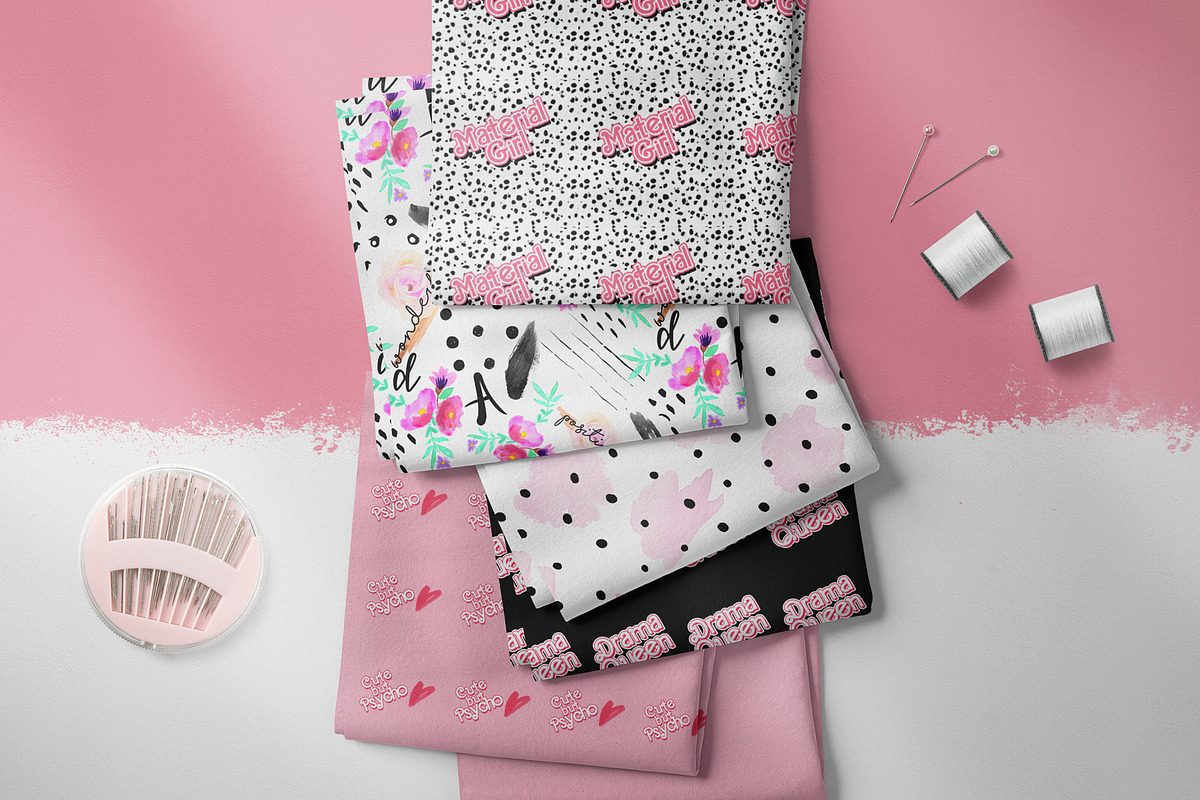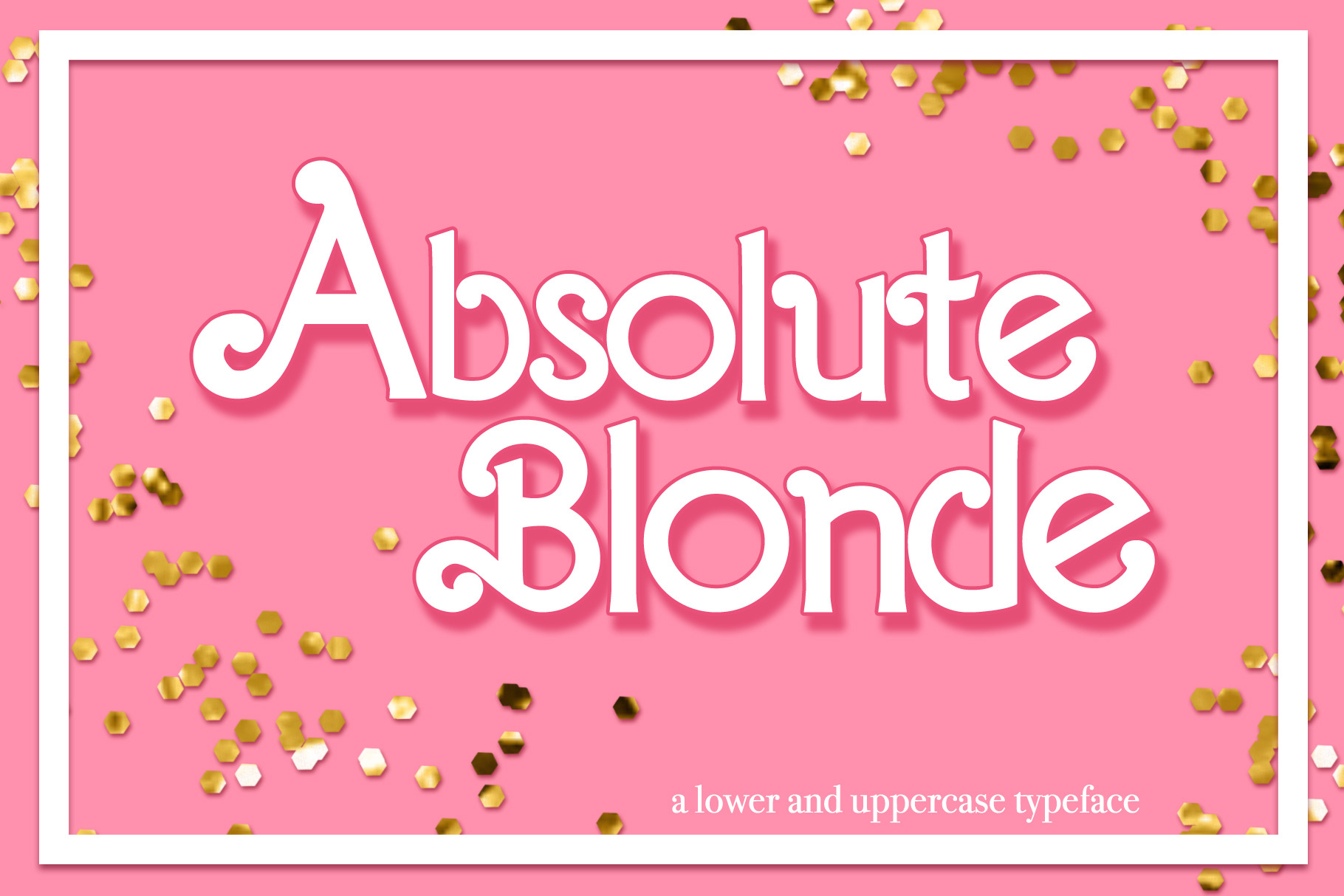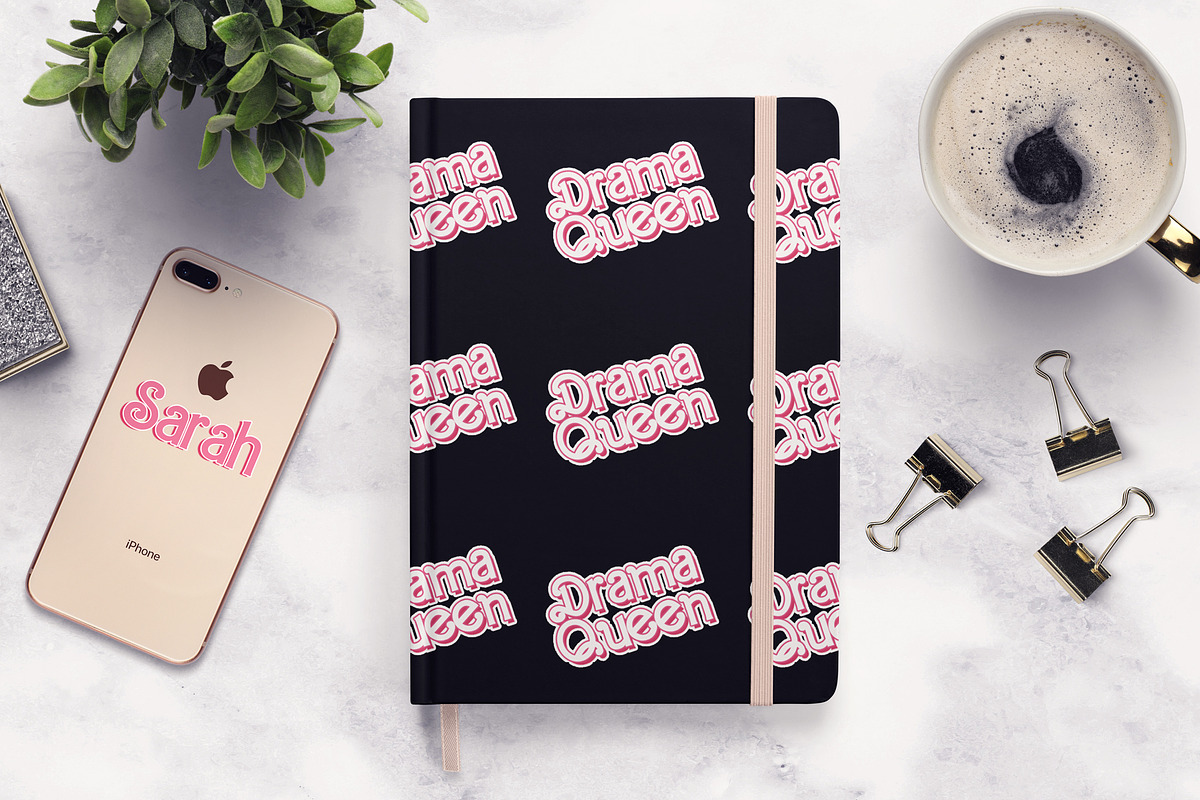
Absolute Blonde Typeface
Hello everyone... it has been a year I have been working on this typeface. There were many odds, and difficulties, but in the end I made in , in collaboration with Samicreations ( from fiverr).. As you can see, this typeface looks very similar to the old original vintage Barbie Mattel lettering. Well, yes. I made it on purpose since years ago I was looking for this specific font and I discovered...it just didn't exist. In fact, Mattel never released a font for this, but it was just a custom lettering. So, I made a research and recollect all the images of old Barbie packaging were the old lettering was visible; many letters were not available so I retraced each one by one, first in raster, then in vectors. I tried my best, this is my first typeface ever, I hope you will like it, and please alert me in case of issues. This is a Photoshop typeface, you will download an otf and ttf file Have fun! ( does not contains numbers or glyphs or any kind of extra symbols or ornaments).